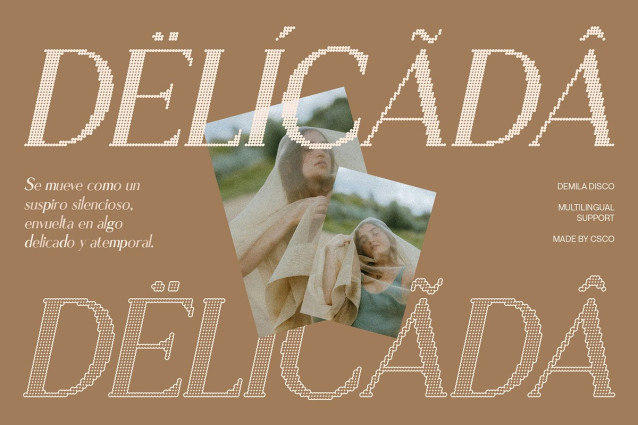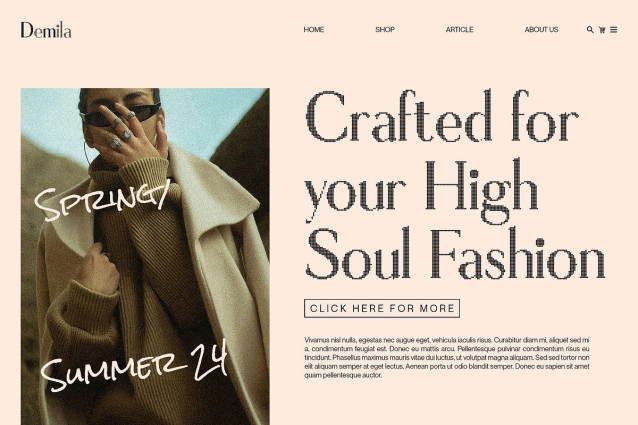
Demila Disco Font
Demila Disco Font: Where Refinement Meets Retro Sparkle Modern Serif with Disco Flair This is a modern serif font that combines slender, elongated serifs with shimmering disco-inspired details. Its elegant letterforms radiate refinement and style, while the sparkling character effects give it a distinctive, playful edge that shines in both classic and creative projects. Slender Serifs for Stylish Sophistication The elongated serif design brings a graceful, contemporary look that enhances readability and adds charm to every character. This stylistic detail makes versatile equally fitting for refined layouts or bold, eye-catching displays. Disco Shimmer for Expressive Character Infused with a unique disco shimmer effect, transforms text into a vibrant visual element. This sparkle-inspired detail adds depth and energy, creating a lively rhythm that feels glamorous, nostalgic, and modern at the same time. Perfect for Posters, Branding, and Funky Headlines Ideal for party posters, nostalgic branding, funky editorials, or standout headlines, balances sophistication with retro expressiveness. Whether you’re designing for fashion, events, or bold promotions, this font ensures your work makes a statement with style and sparkle. Download Type Speciment: — What you get : – Demila Disco Regular – Demila Disco Italic Features : – Uppercase and lowercase characters – Numerals and Punctuation (OpenType Standard) – Accents (Supports Multilingual Characters) – PUA Encoding — You can use this typeface without needing any specialized software. — If you have any inquiries or need assistance, please feel free to contact us. We appreciate your support in enhancing your creative projects! Best regards, Craft Supply Co.